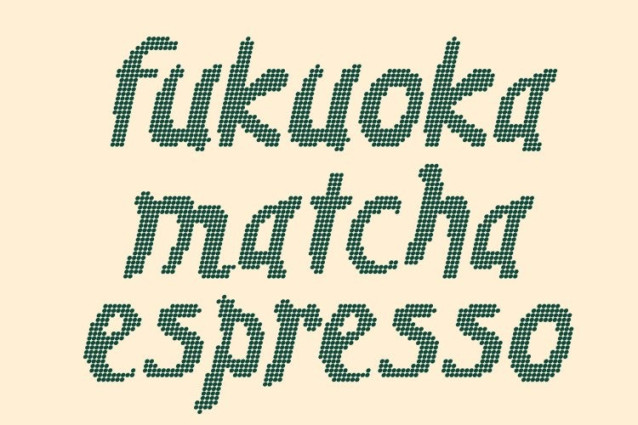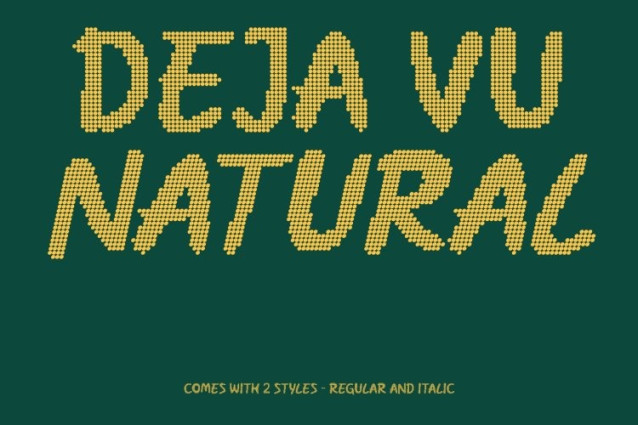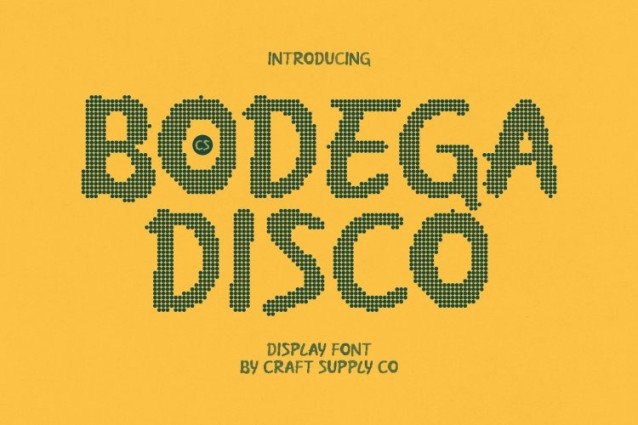
CS Bodega Disco Font
CS Bodega Disco Font This is a modern handwritten display font that blends clean contemporary forms with joyful disco-era attitude. Each letter flows with natural, expressive movement, inspired by the carefree creativity of the 70s to early 80s. The result is a cute, funky, and cheerful typeface that instantly adds rhythm and personality to any design.
Creative Warmth with Retro Groove
Crafted to feel friendly, spontaneous, and inviting, this font radiates warmth and playful energy. Its informal yet polished structure allows it to shine across both casual and professional projects, while a subtle disco influence adds a lively groove that keeps designs feeling fun, relaxed, and visually engaging.
Perfect for Packaging, Posters, and Playful Branding
This is ideal for children’s content, product packaging, greeting cards, fun logos, posters, and creative branding that aims to feel approachable and full of life. Its handcrafted look and upbeat rhythm make it especially effective where a personal, joyful touch is essential.
Bring Your Ideas to Life with Cheerful Expression
With charming letterforms and energetic movement, this font transforms ideas into expressive visuals. Whether used for bold headlines or playful accent text, this font ensures your message feels genuine, lively, and delightfully memorable.